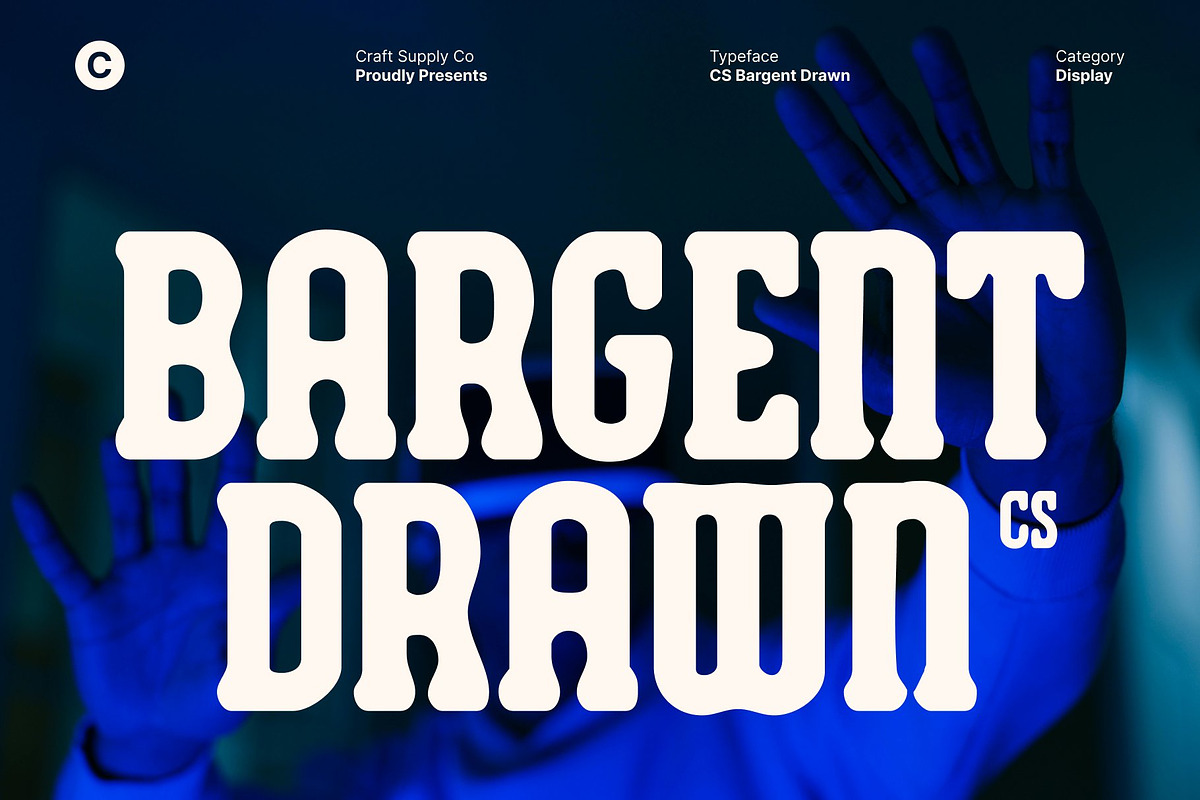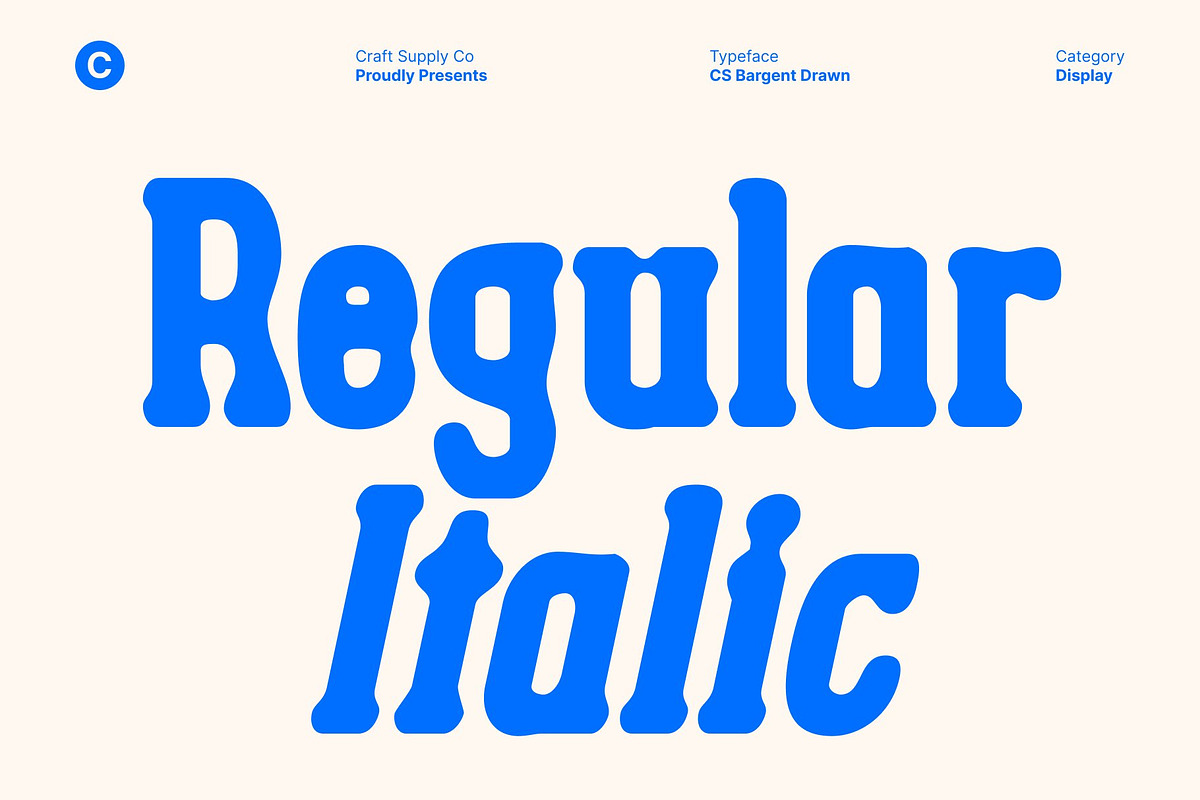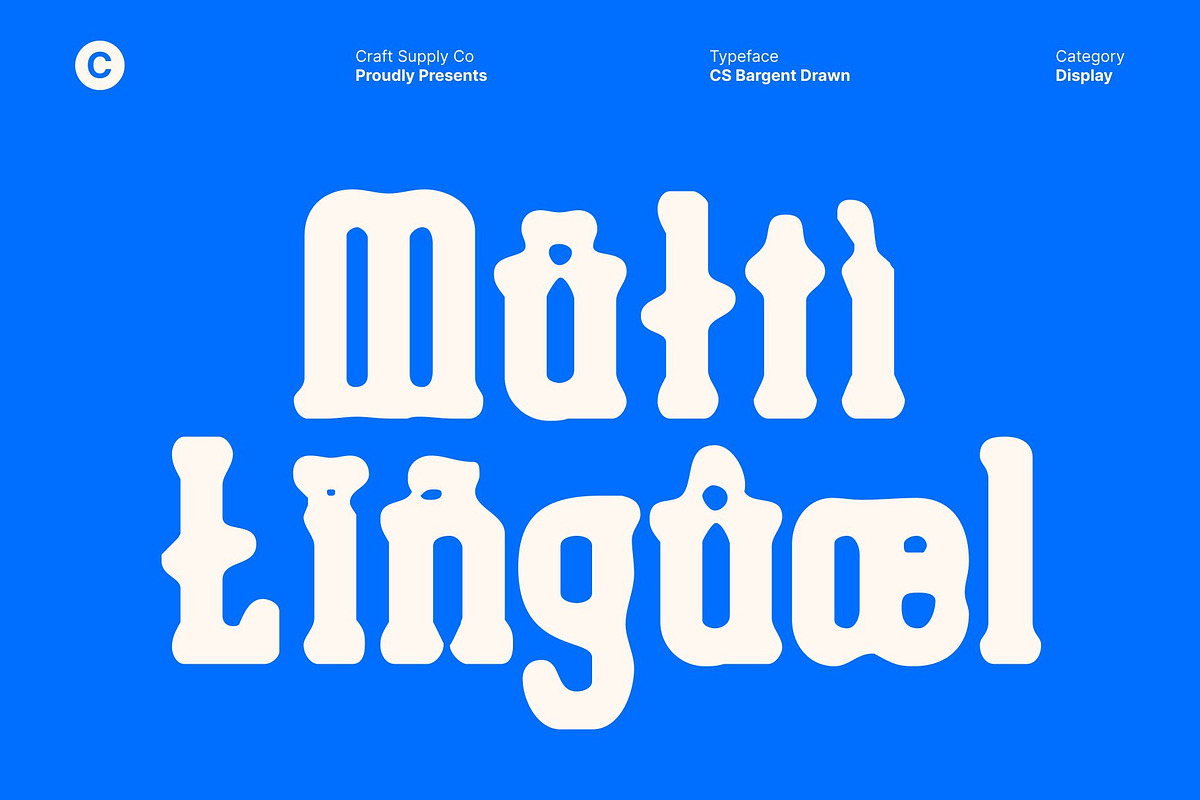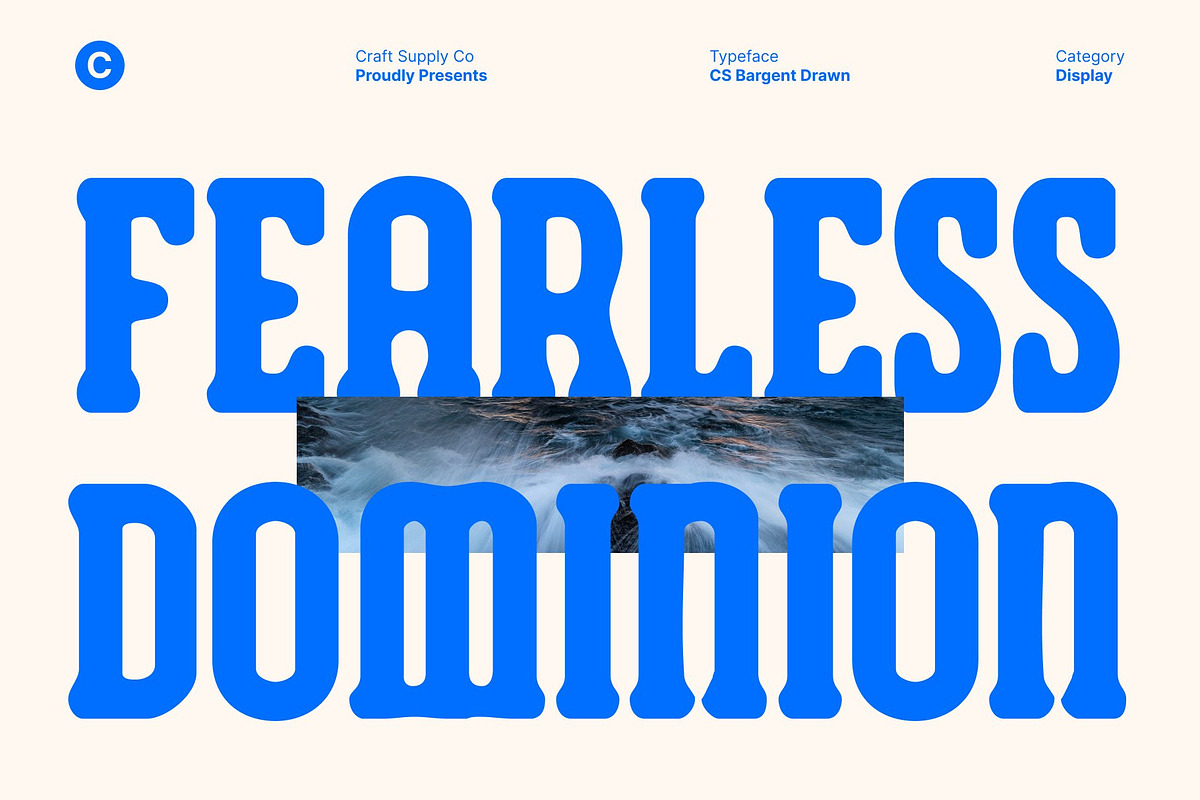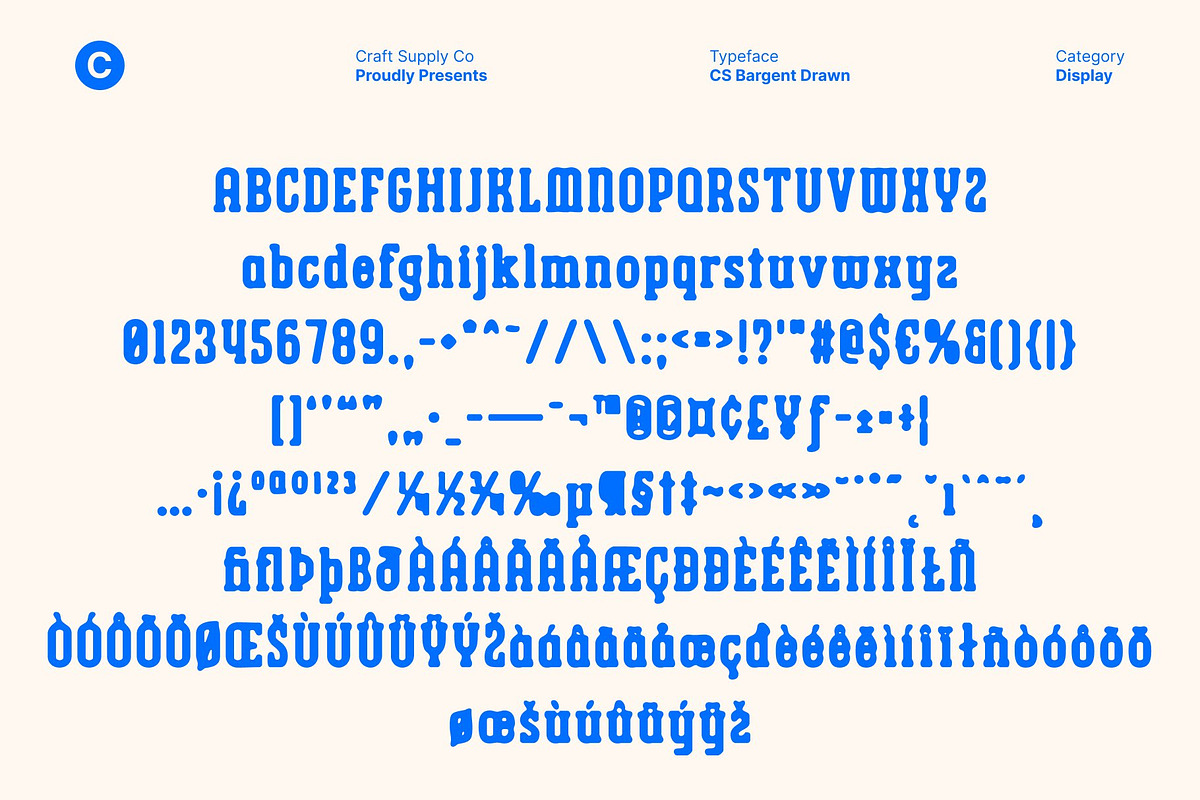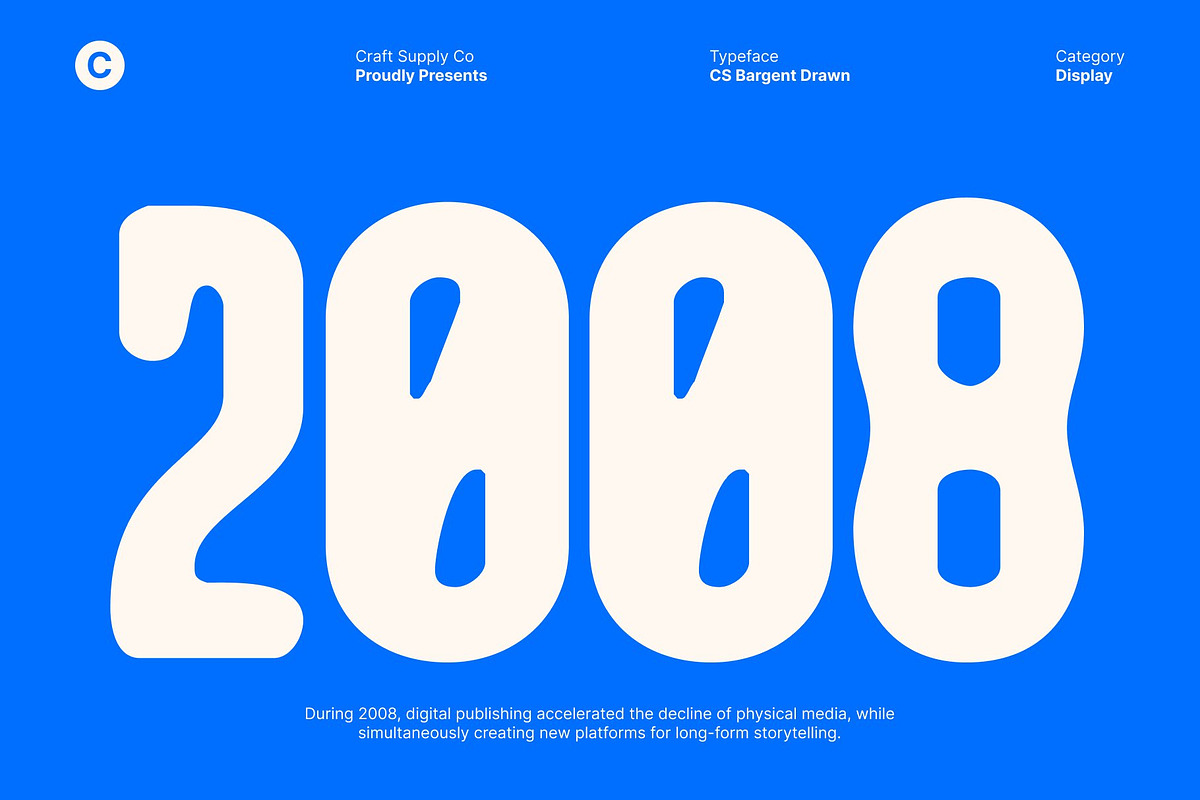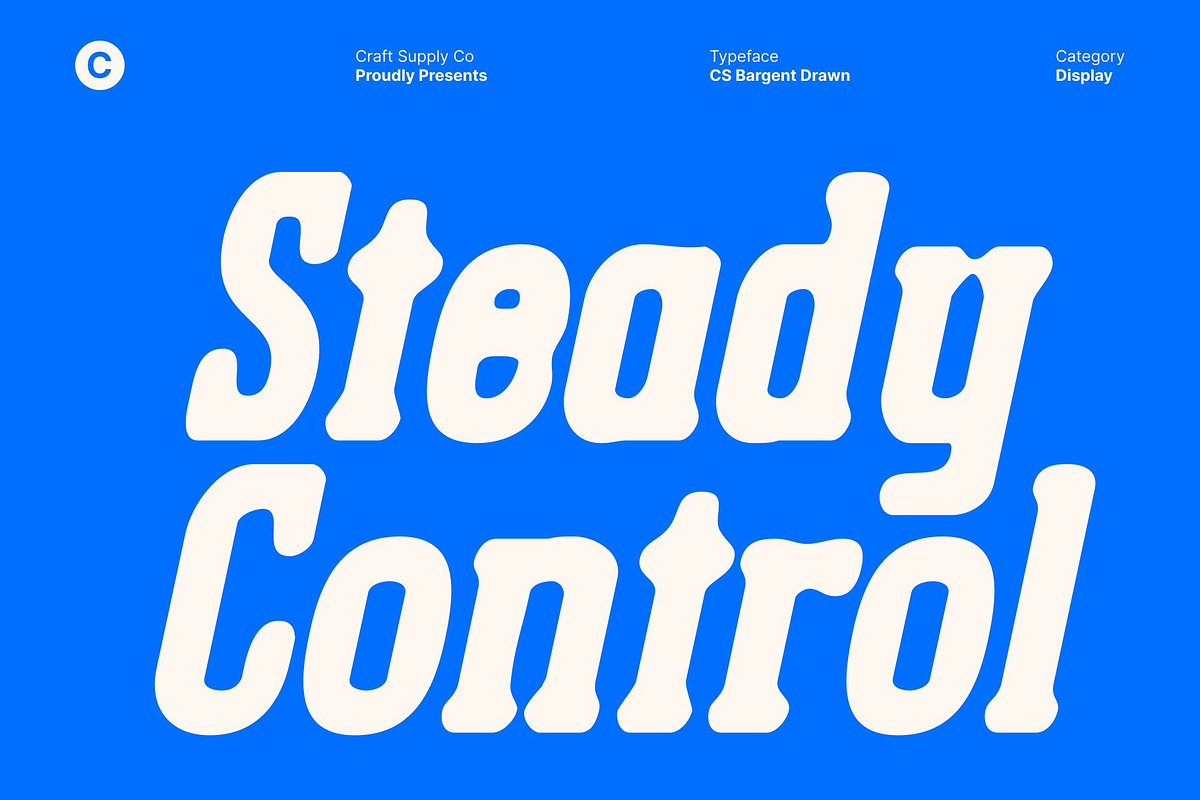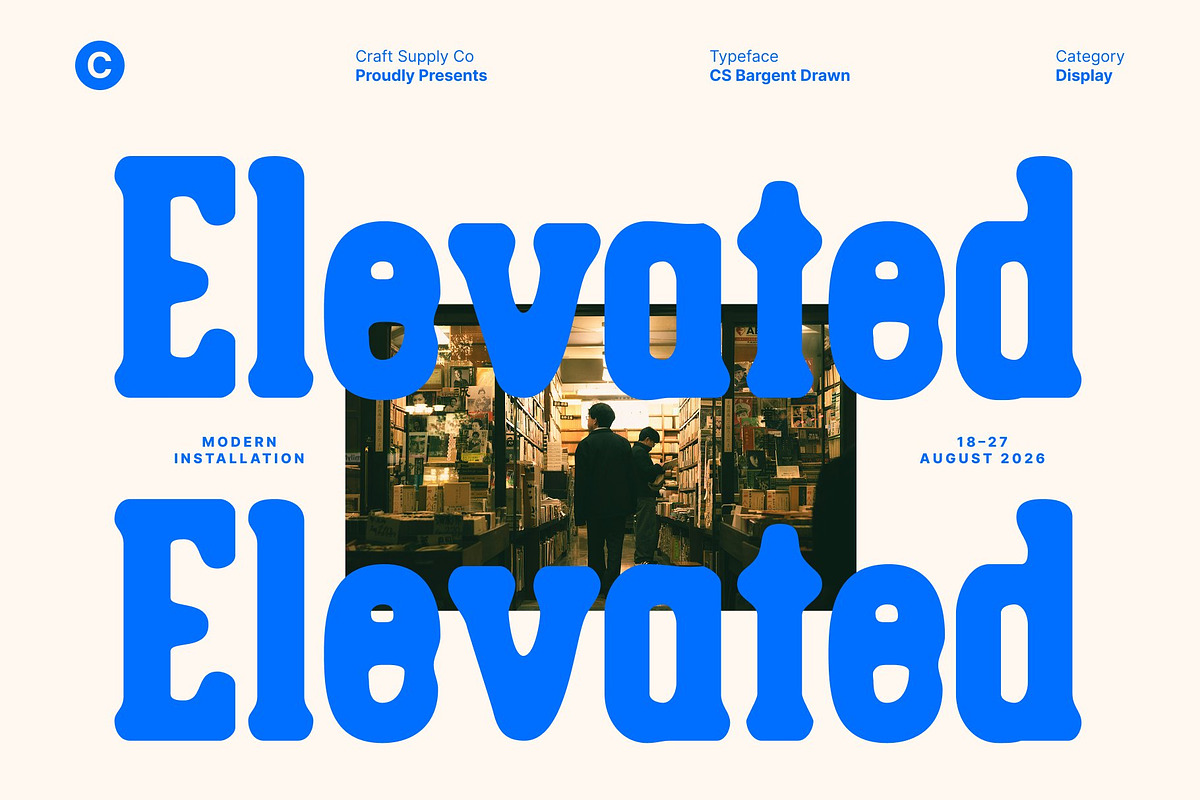
CS Bargent Drawn
CS Bargent Drawn – Modern Slab Serif Font with Bold, Sporty Confidence
Soft Yet Assertive Slab Serif Design This is a modern slab serif font that skillfully balances soft curves with bold, assertive construction. Its sturdy slab serifs give the typeface a strong and confident foundation, while the rounded details keep it approachable and visually friendly. Enhanced with a drawn texture, the font gains a handcrafted feel that adds warmth, character, and authenticity to its powerful structure.
High Impact with Clear Readability Designed to perform at larger sizes, excels in headlines, posters, advertisements, and billboards. Its bold proportions and clear letterforms ensure excellent readability, even from a distance. The drawn effect introduces subtle texture without sacrificing clarity, making the font both expressive and highly functional for display use.
Sporty Energy with Modern Appeal Inspired by sporty and campus-style typography, delivers an energetic and dynamic vibe. Its confident stance and balanced proportions communicate strength, motion, and reliability. This makes it especially suitable for sports branding, lifestyle designs, and projects that aim to feel active, youthful, and bold.
Versatile for Strong Modern Branding From logos and packaging to editorial layouts and promotional materials, this font adapts seamlessly across creative applications. Its combination of modern slab serif strength, sporty attitude, and handcrafted texture helps designers create visuals that feel bold, memorable, and full of personality.